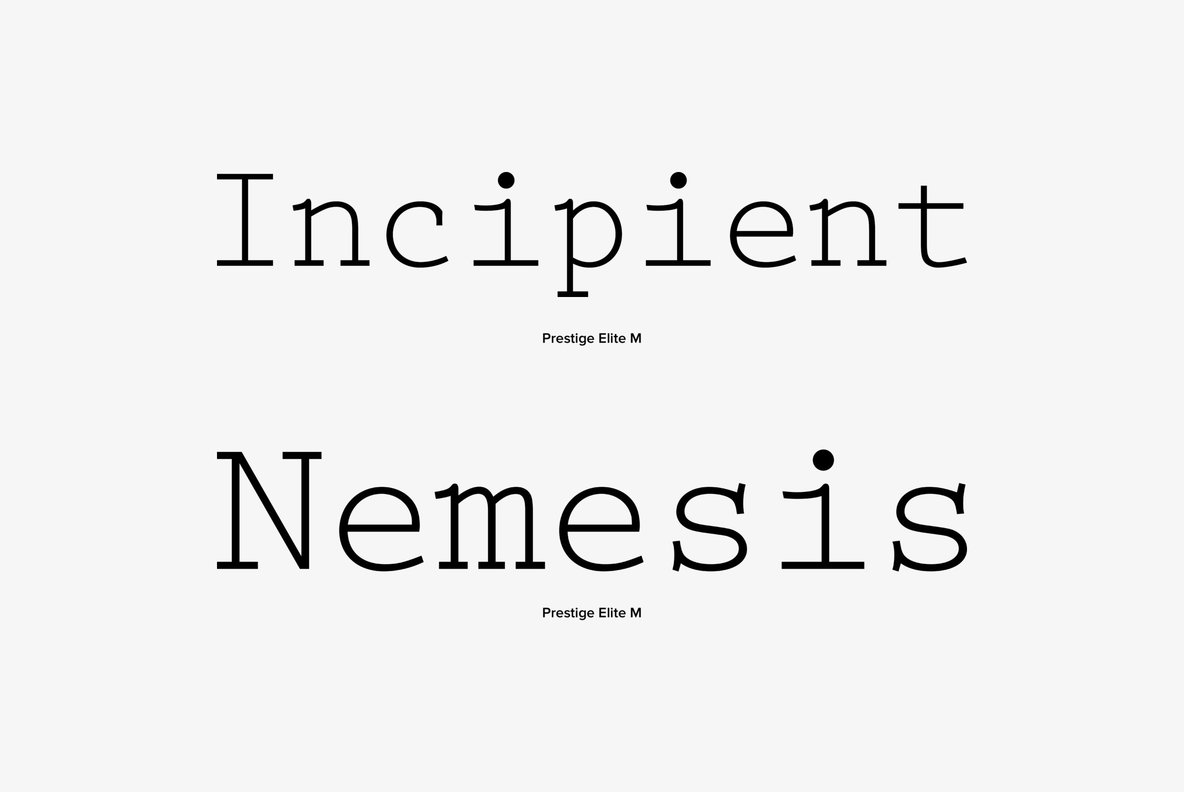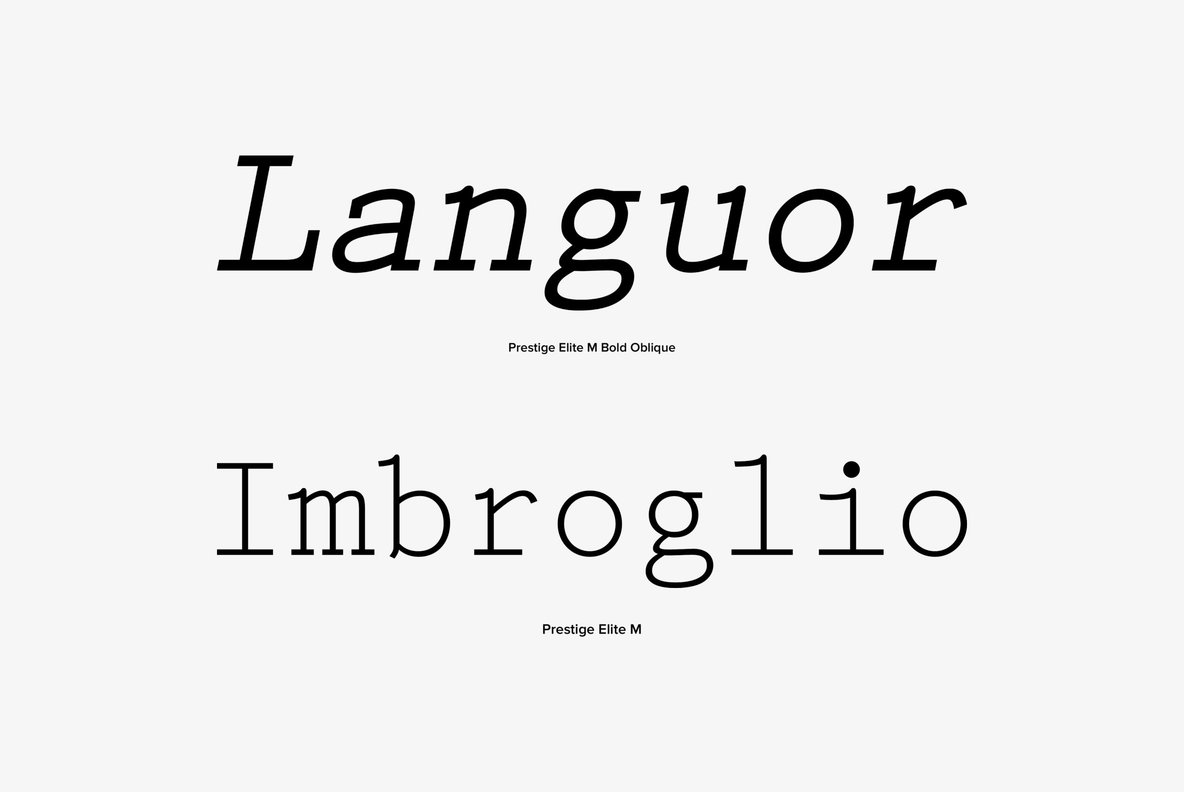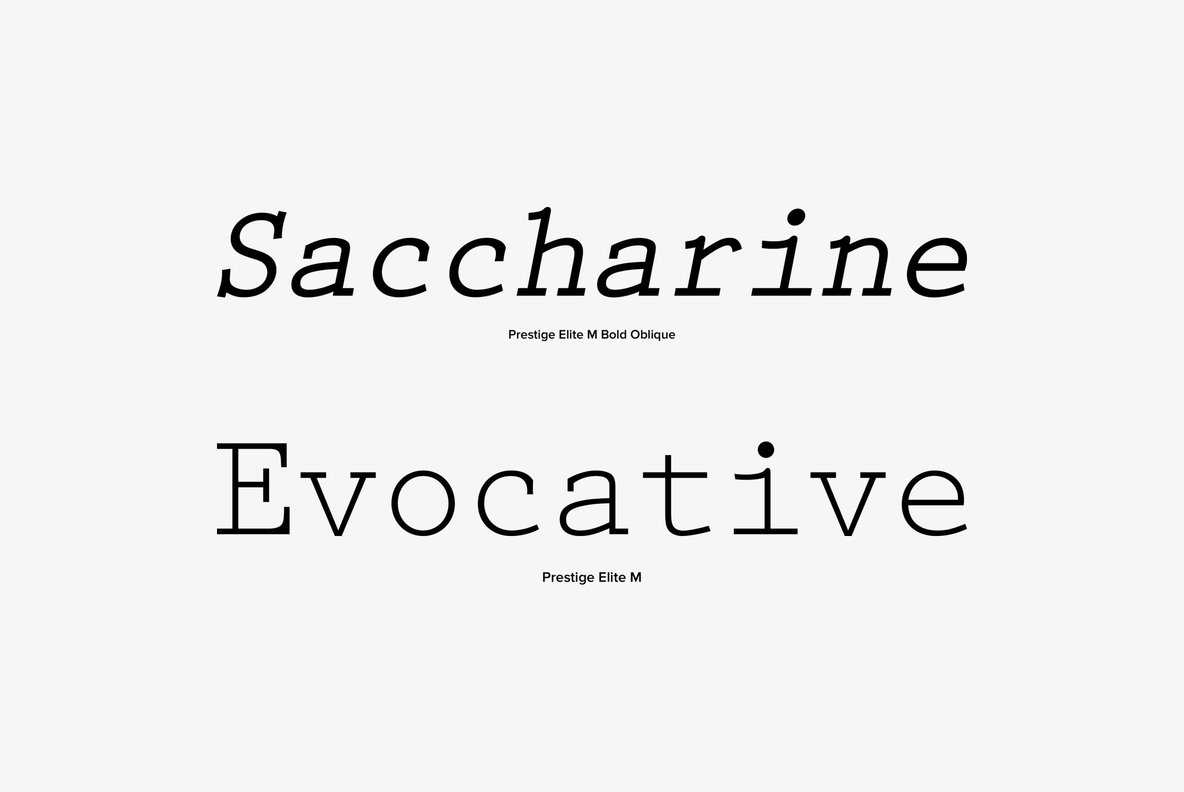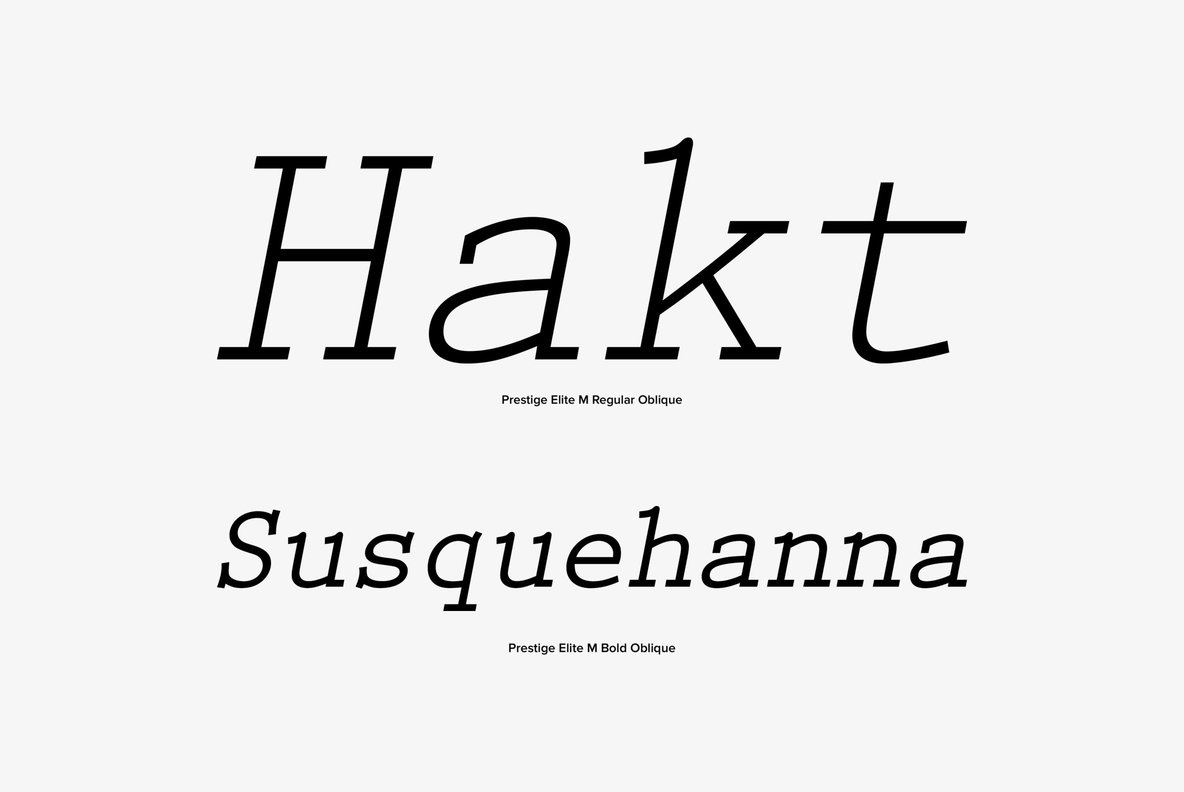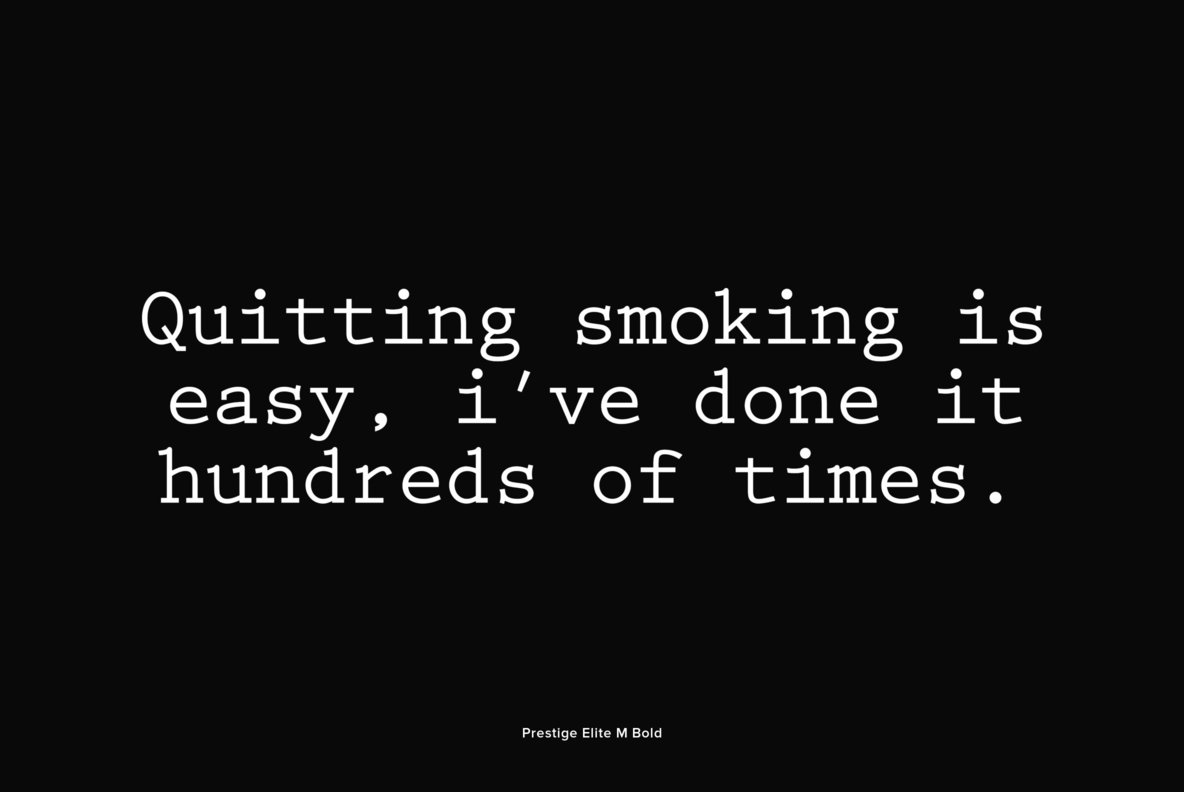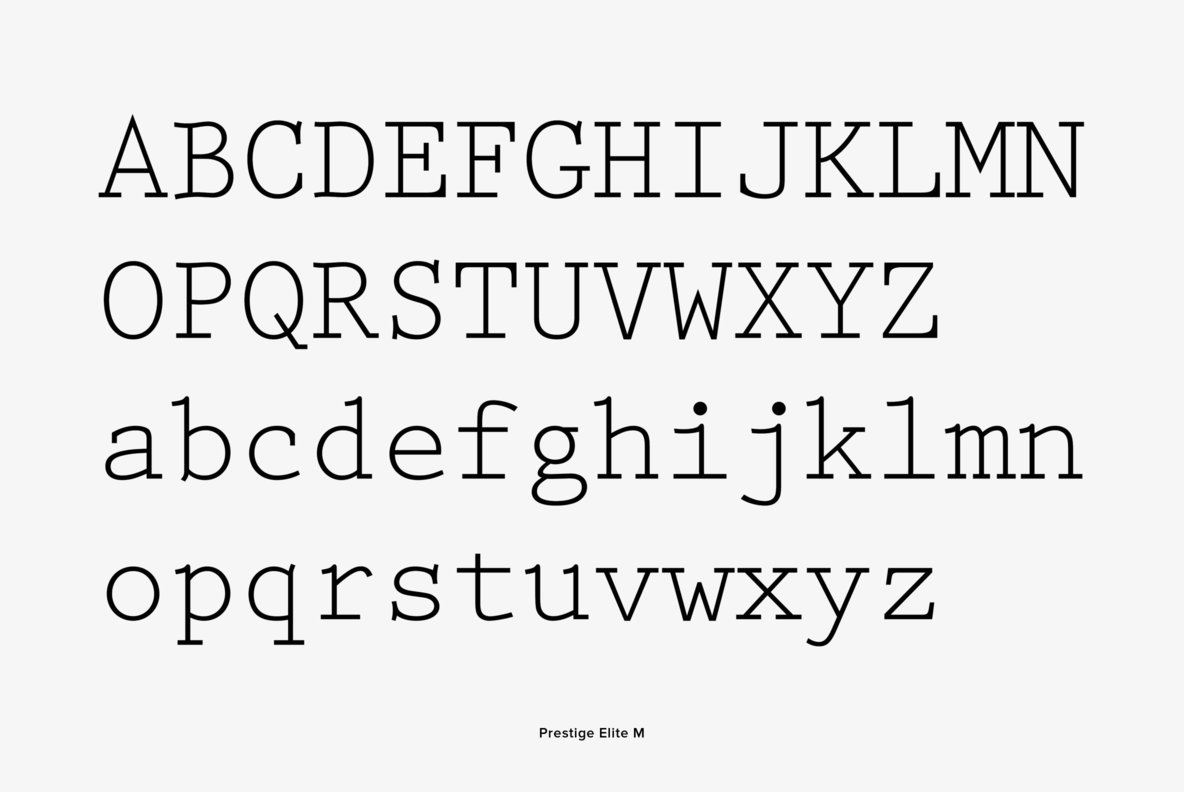
Prestige Elite
Prestige Elite is a minimal, clean monospaced typewriter typeface, originally designed for use by IBM. This modern version was published by URW and was originally designed by Clayton Smith in 1953.